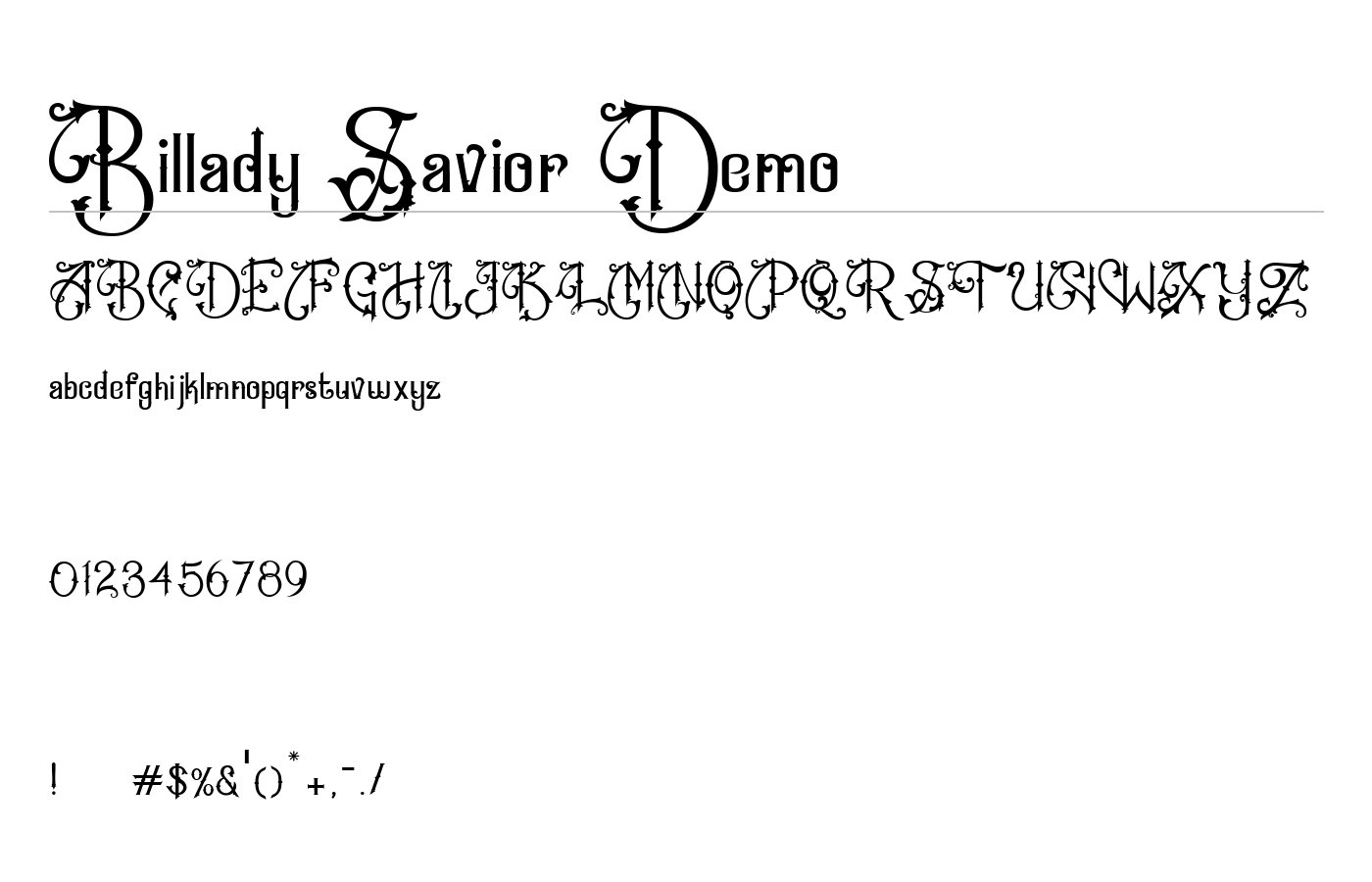
Billady Savior Demo is a decorative serif font with an ornate, Gothic-inspired style featuring intricate, pointed flourishes on uppercase letters and strong vertical strokes. Its narrow, tall letterforms and high contrast between thin and thick lines give it a dramatic and vintage feel, ideal for striking headlines, logos, or creative projects where a bold, elegant statement is needed. This font works best in artistic or historical-themed designs but is less suited for body text due to its intricate detailing.
Billady Savior Demo Font
About Billady Savior Demo Font
| Font family | Billady Savior Demo Font |
| Designer | MOH.TAUFIQ |